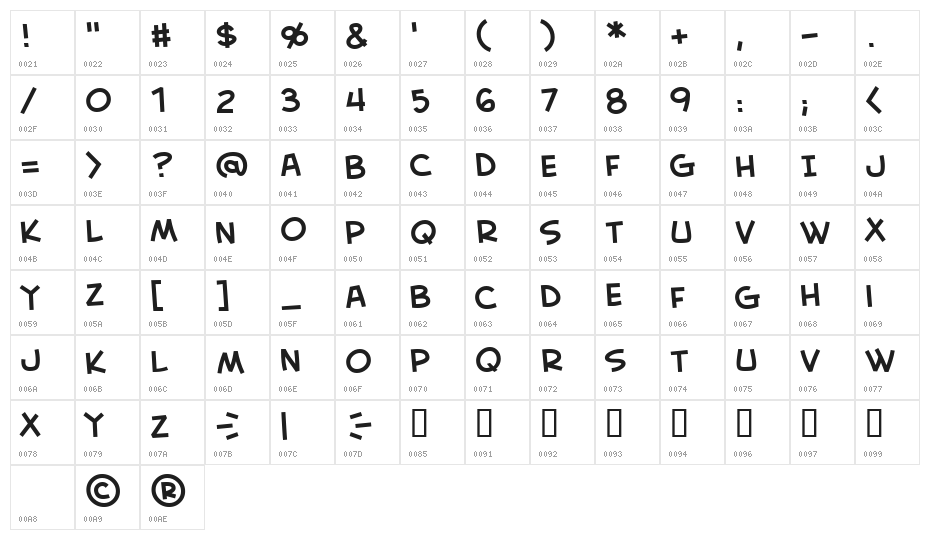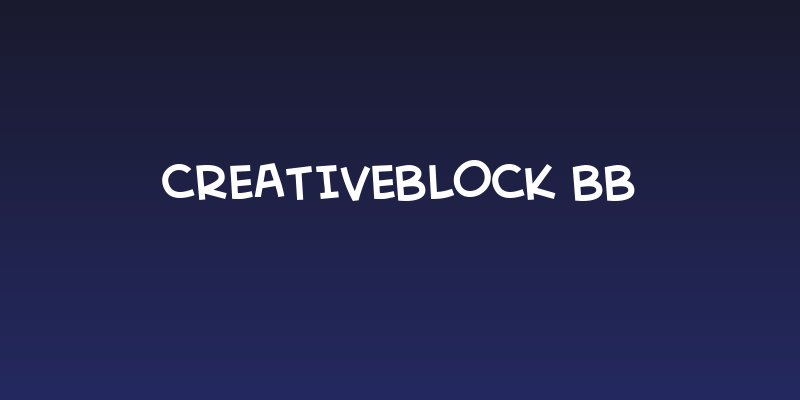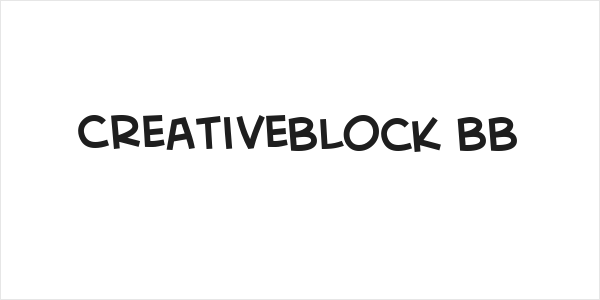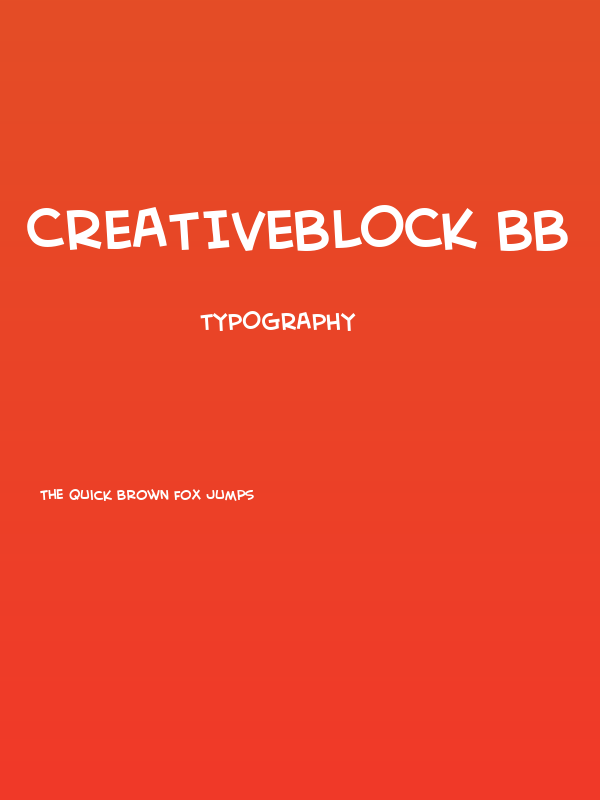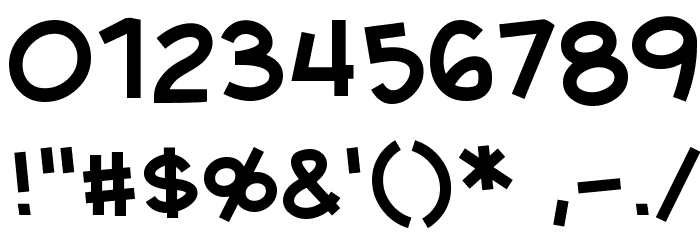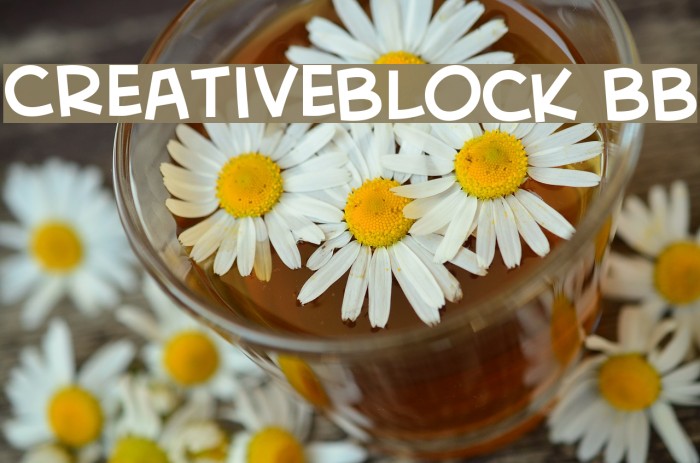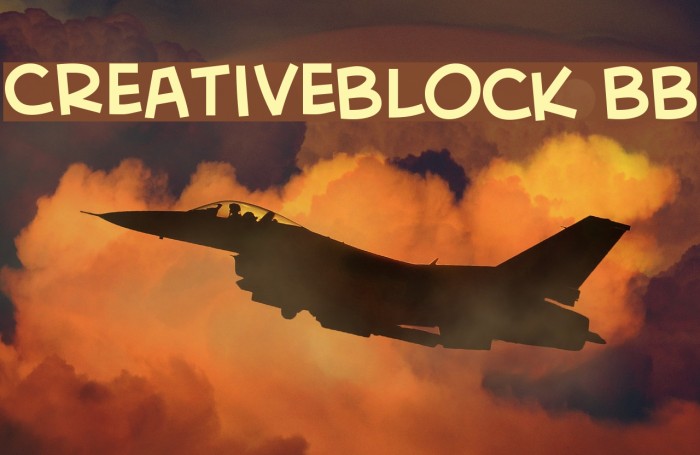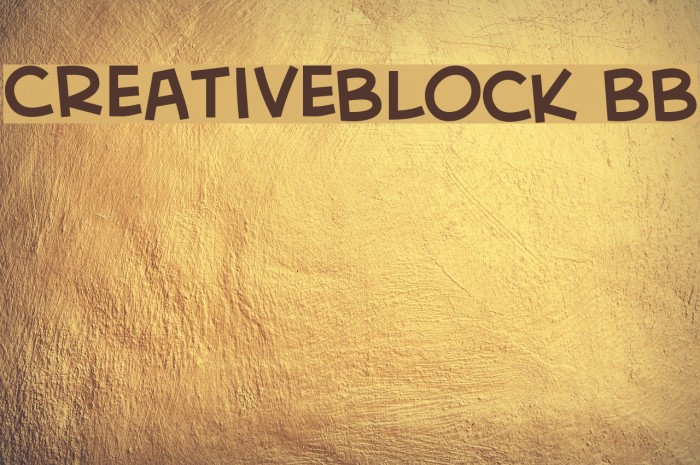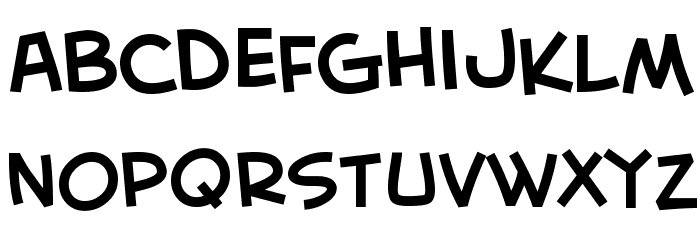
CreativeBlock BB Font
CreativeBlock BB Description
This font features a playful and bold style, characterized by its thick, uneven strokes and slightly irregular letterforms. The letters have a hand-drawn appearance, giving them a casual and informal feel. The uppercase and lowercase letters maintain a consistent style, with rounded edges and a slight tilt that adds to the whimsical nature of the font. The numbers and special characters follow the same design principles, ensuring a cohesive look across all glyphs. This font is ideal for projects that require a fun and approachable aesthetic, such as children's books, comic strips, or playful branding materials.
| Overall Style | Playful, Informal |
| Proposed Projects | Ideal for children's books, comic strips, playful branding, and informal invitations. |